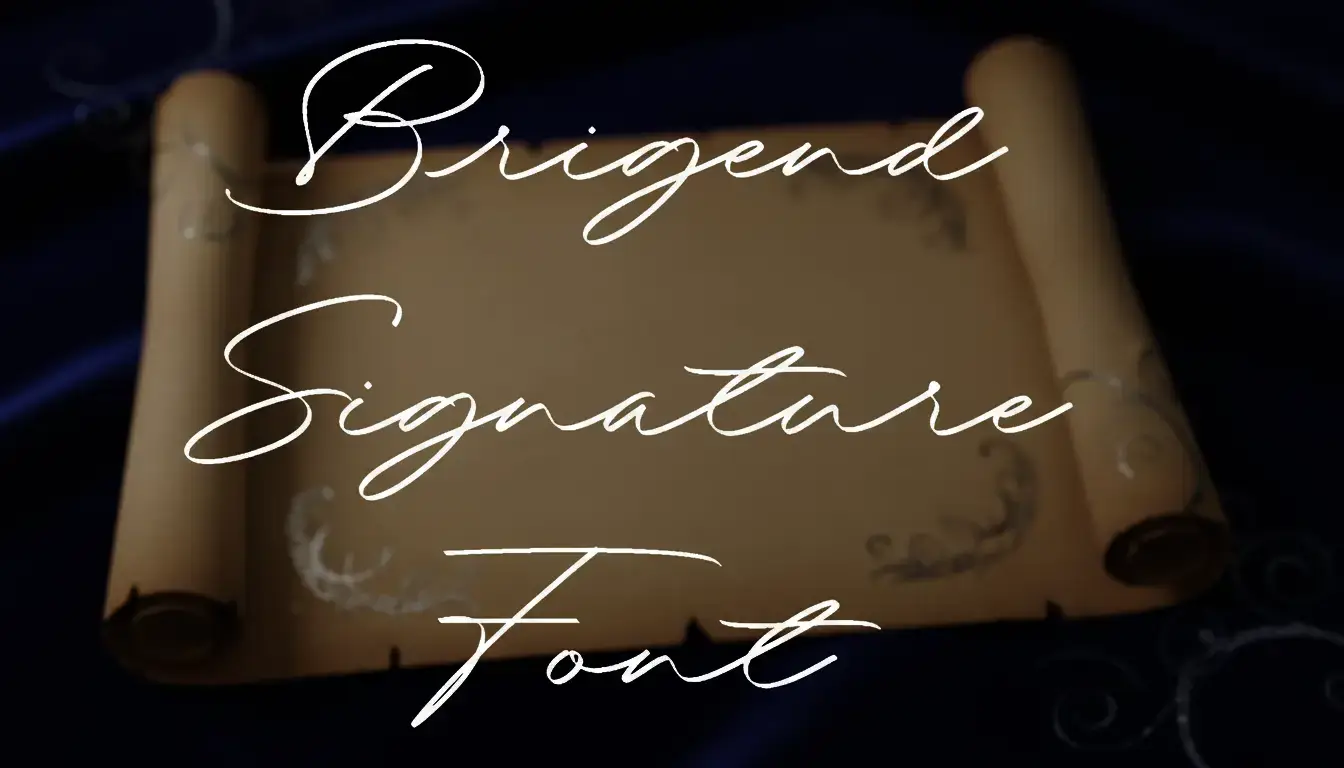
Brigend Signature Font
Brigend Signature
Brigend Signature is a script font created by Dwi Ahidian. Its flowing, pen-made letters give names and short phrases a personal, polished look. You can download it for free and test it with your own words in the preview above.
- Designer: Dwi Ahidian
What You Can Type With Brigend Signature
Brigend Signature covers the full alphabet in upper and lowercase, plus all ten numbers, so you can set names, dates and prices without switching fonts. Common punctuation such as &, !, ? and @ is included as well. It doesn't include accented letters such as é or ñ, which makes it an English-only font.
Where Brigend Signature Works Best
Think of Brigend Signature for wedding invitations, logos and signature-style headings. Script fonts read best in short bursts, so keep it to names, titles and one-line quotes. Skip all caps: script capitals are drawn to start a word, not to fill one.
Does Brigend Signature support accented letters?
No. Brigend Signature has no accented letters such as é, ñ or ü, so it's best for English text.